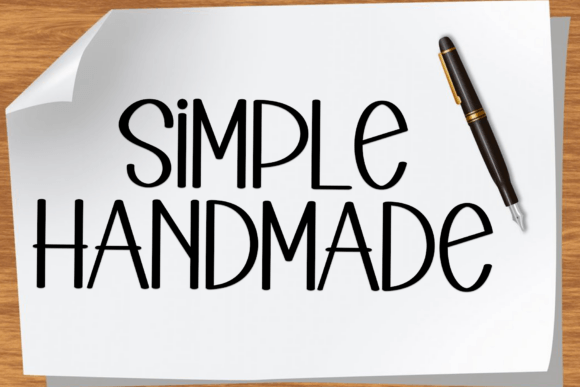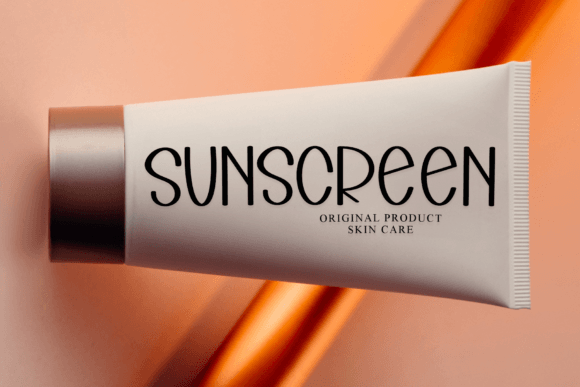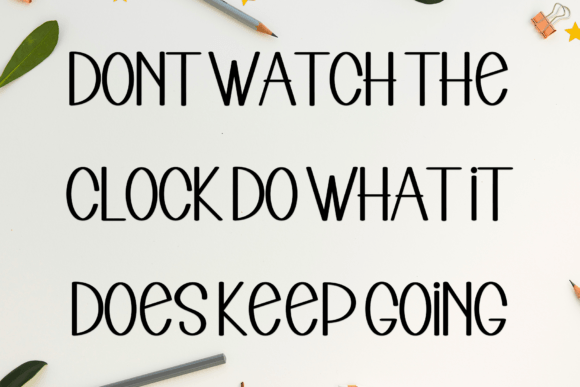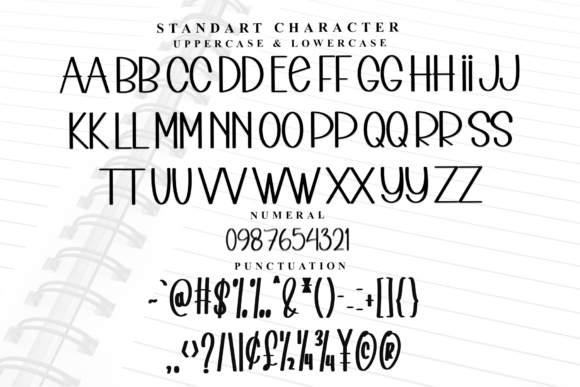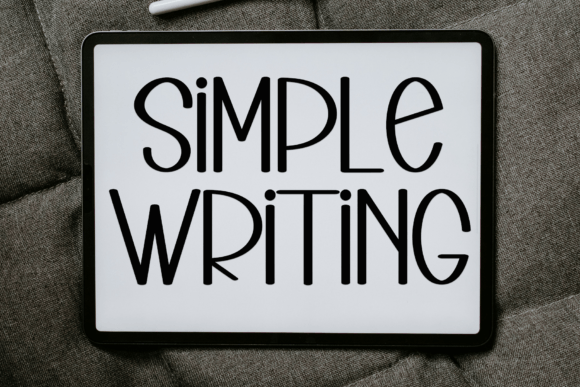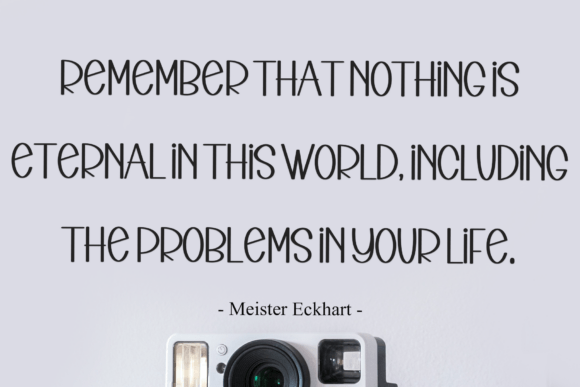
Introduction to School Modern Font Font
Fonts play a crucial role in design, and the School Modern Font font is a typeface that brings both character and versatility to any project. Whether you’re working on a branding project, a website, or a print design, the School Modern Font font offers a unique style that can elevate your work.
School Modern is a sweet and friendly handwritten font.
Key Features of School Modern Font Font
Why Choose School Modern Font Font?
The School Modern Font font is more than just a typeface – it’s a design tool that helps you communicate your message with style and clarity. Its unique character set and versatile design make it suitable for a wide range of applications, from elegant invitations to bold headlines.
With its carefully crafted letterforms and balanced proportions, the School Modern Font font ensures readability and visual appeal across all mediums.
What makes School Modern Font font special?
The School Modern Font font stands out with its unique design, exceptional readability, and versatility across various design applications.